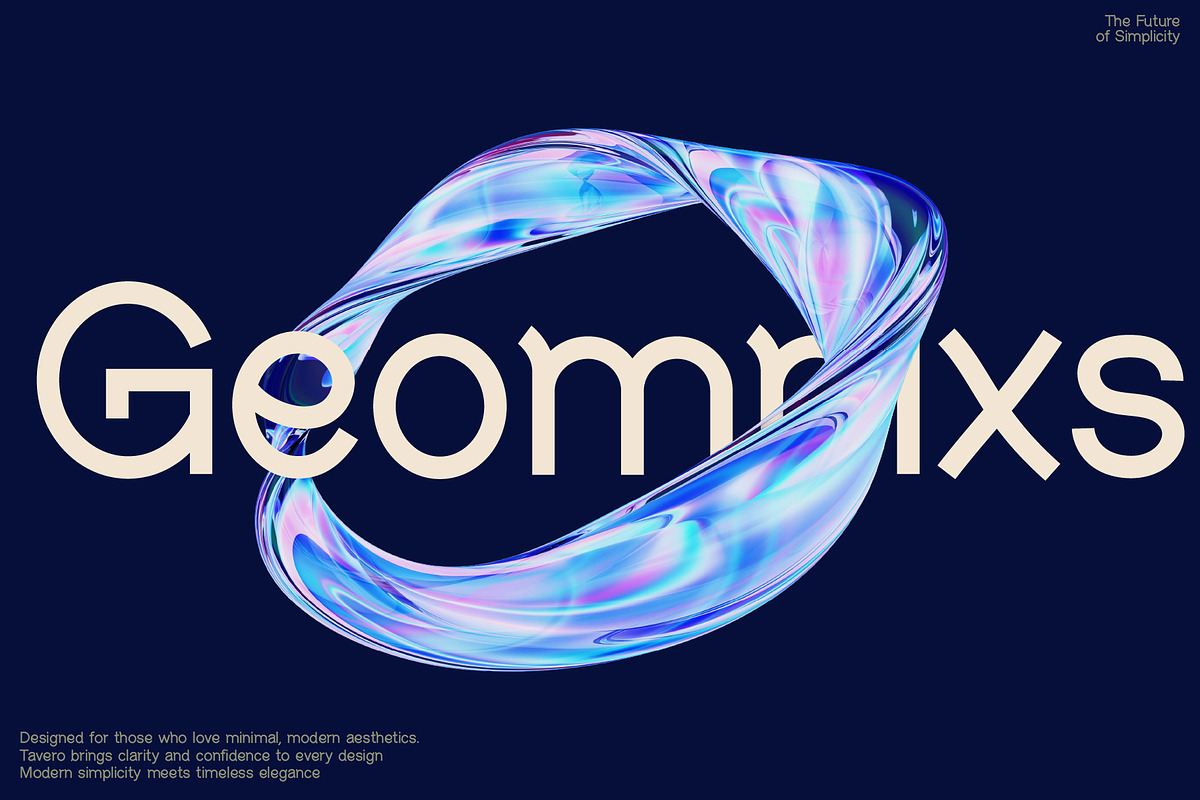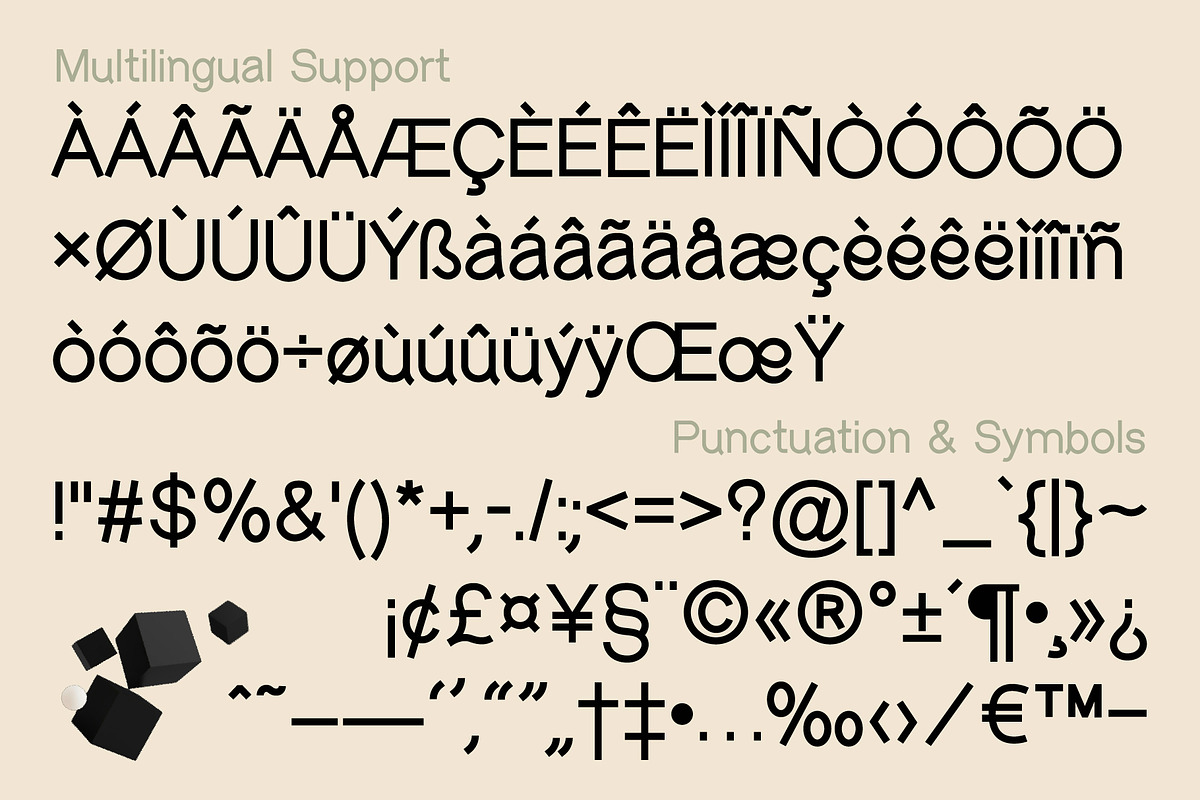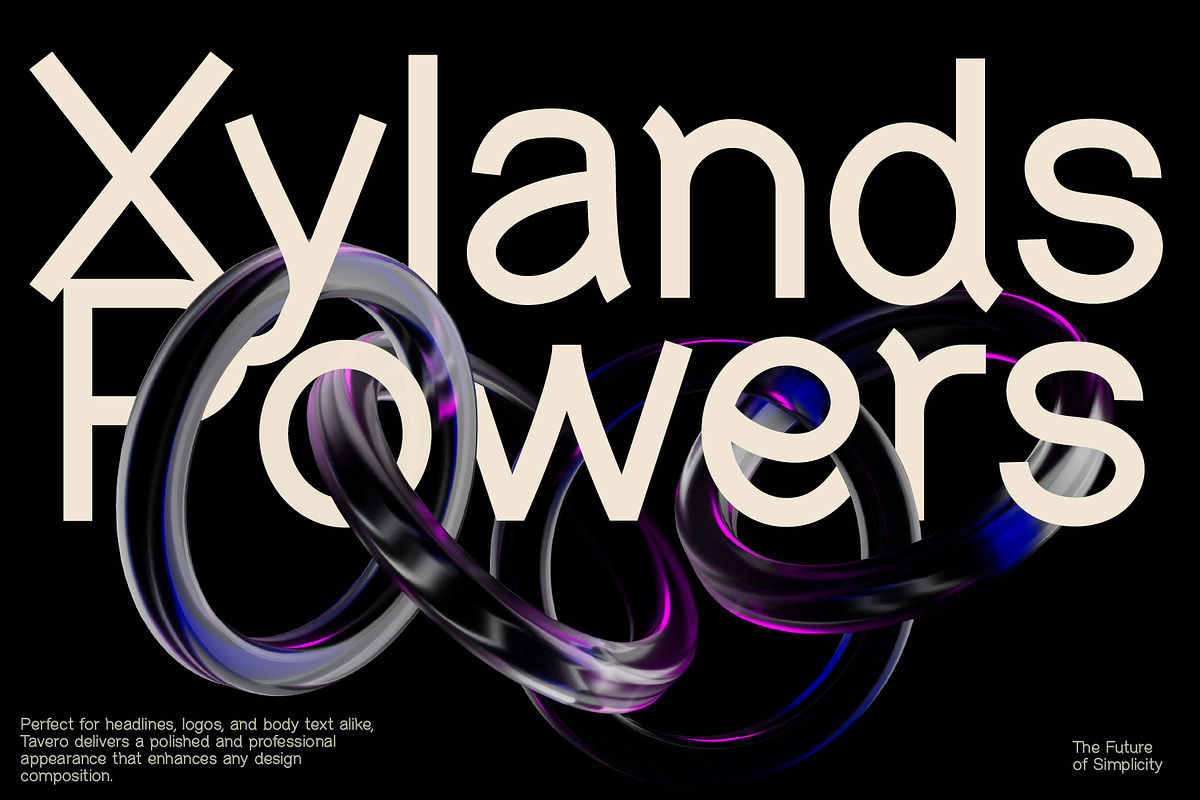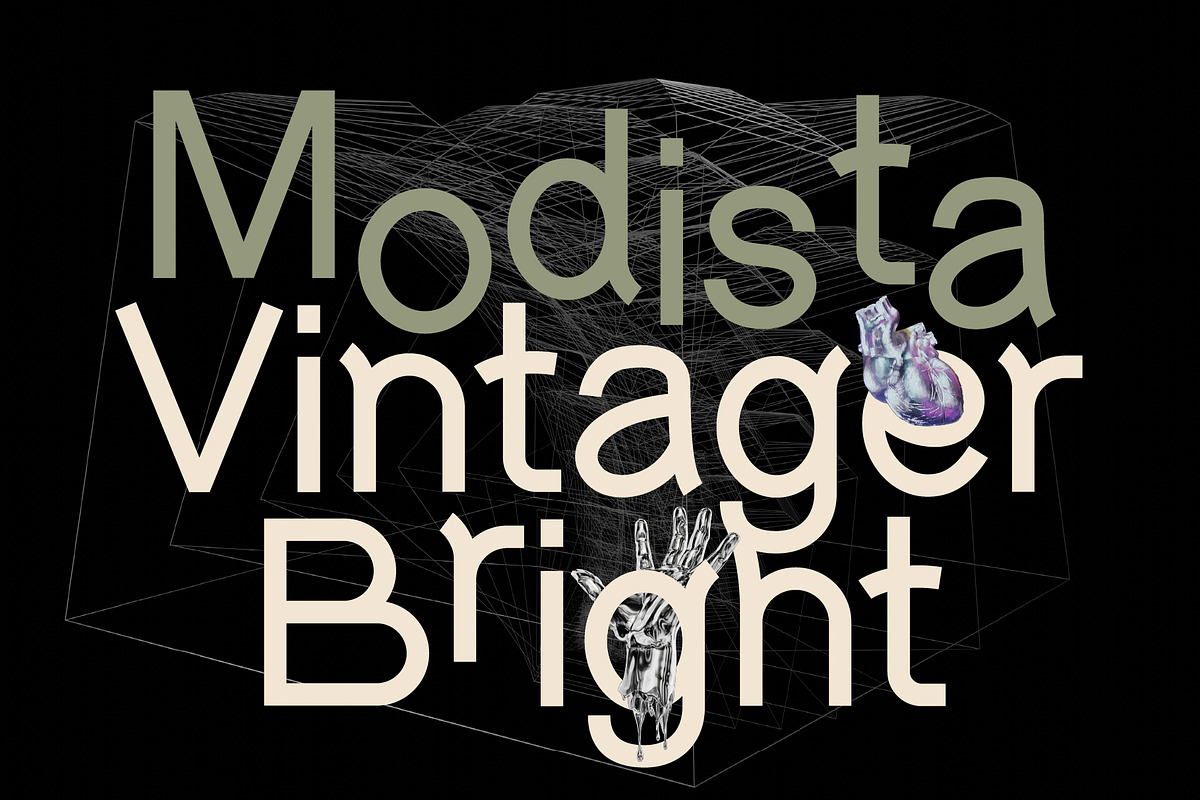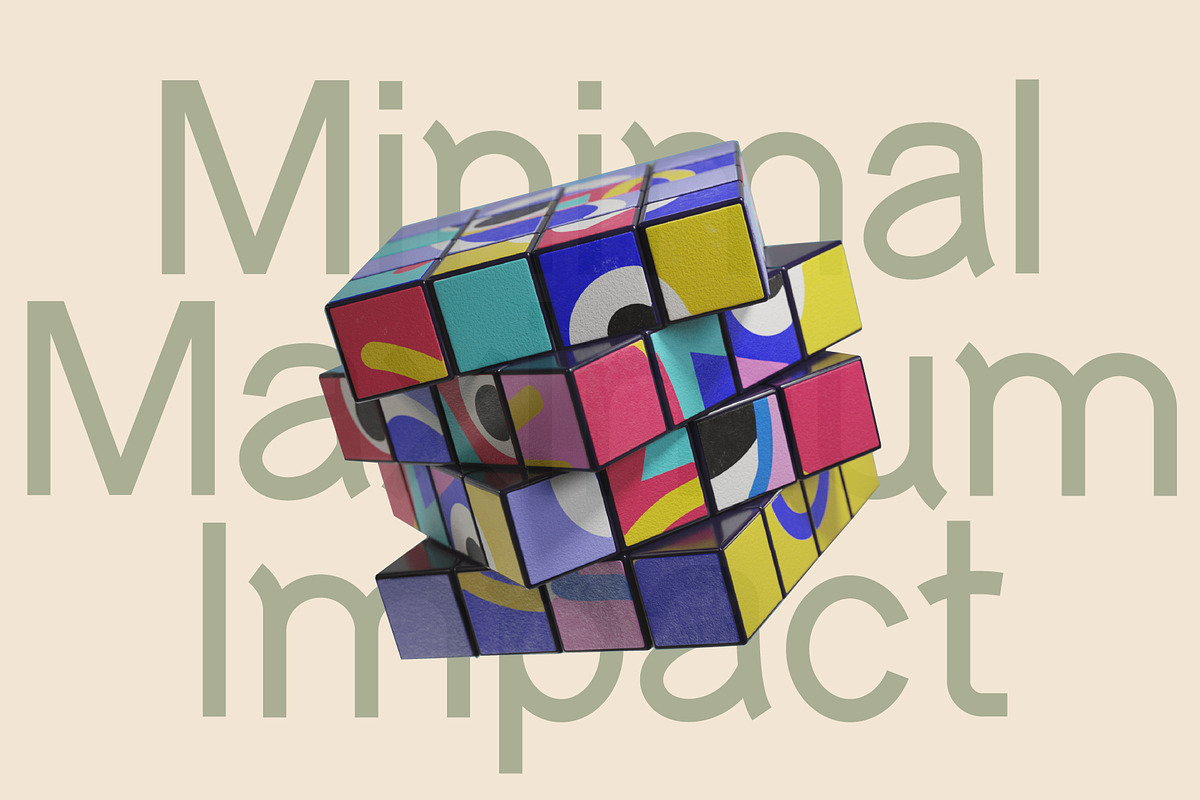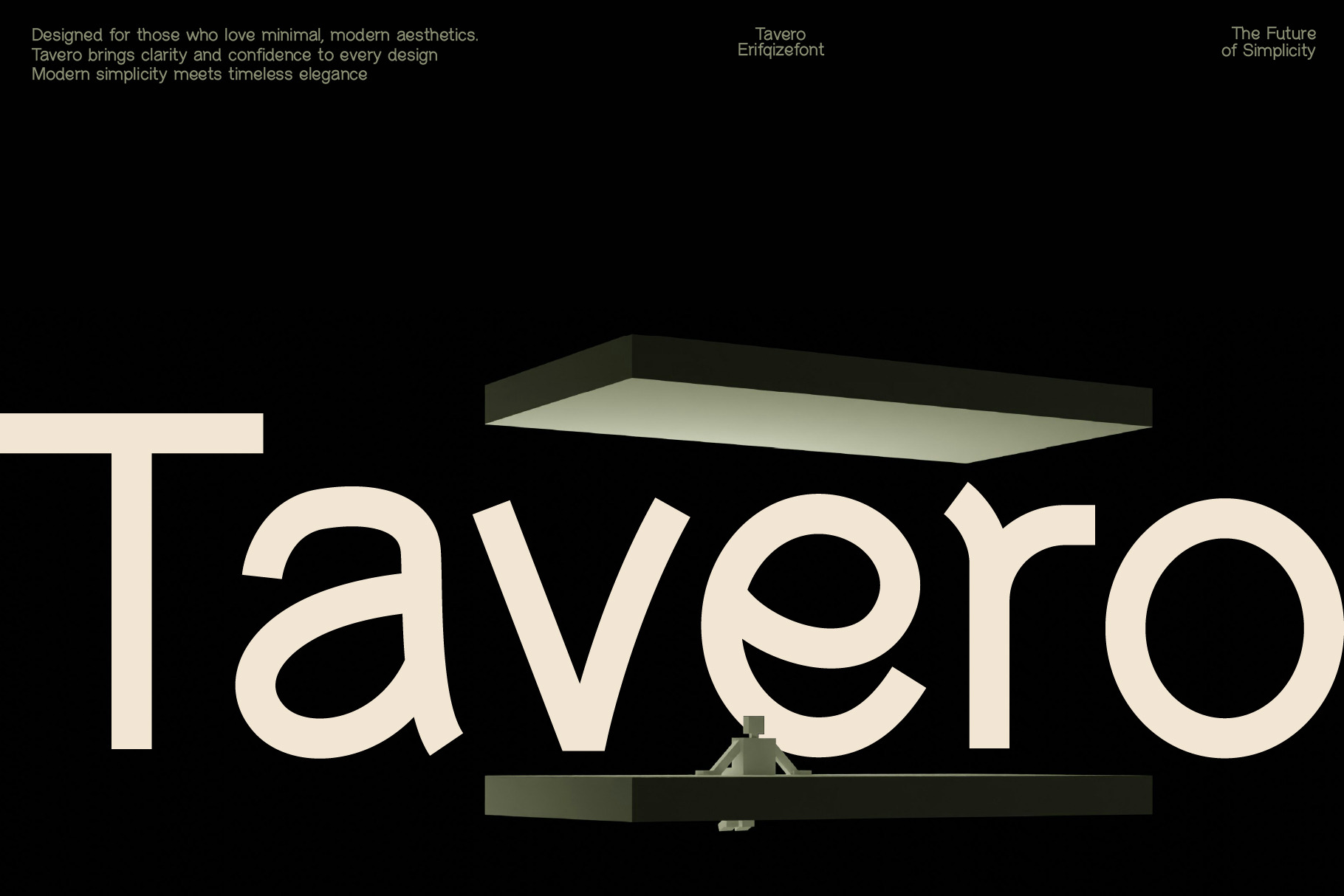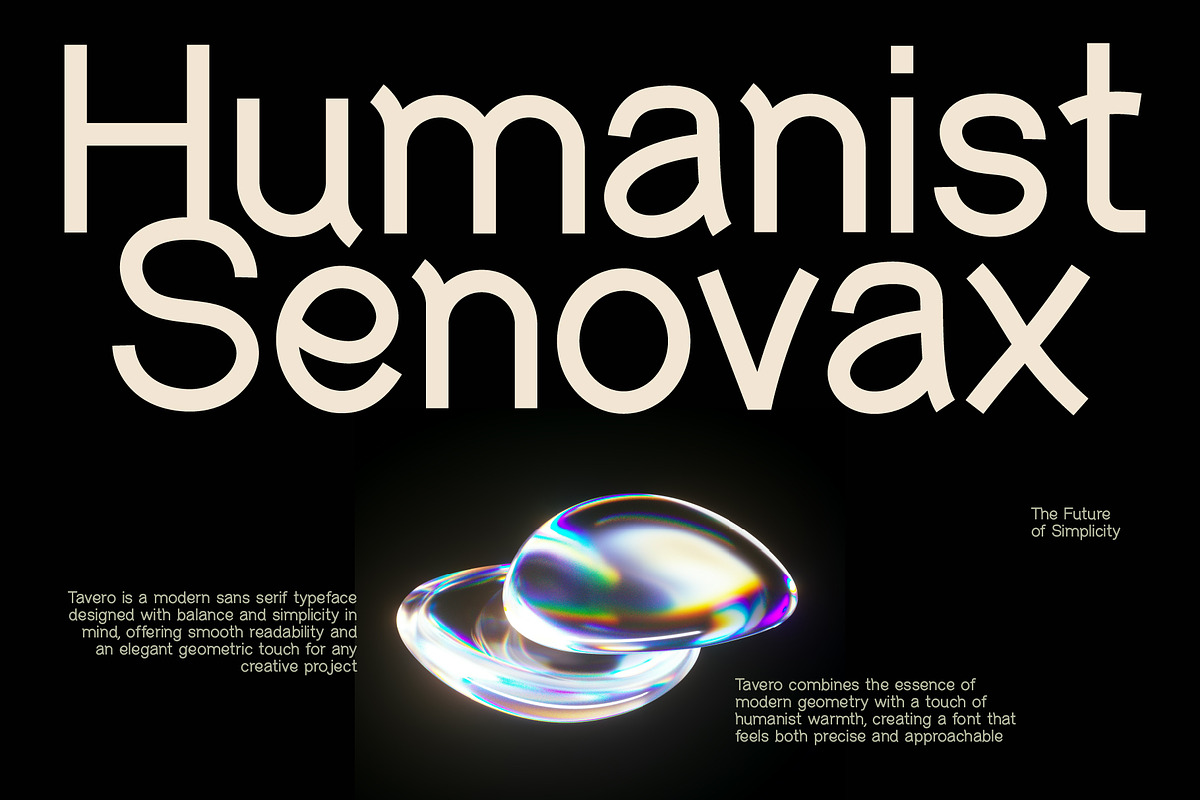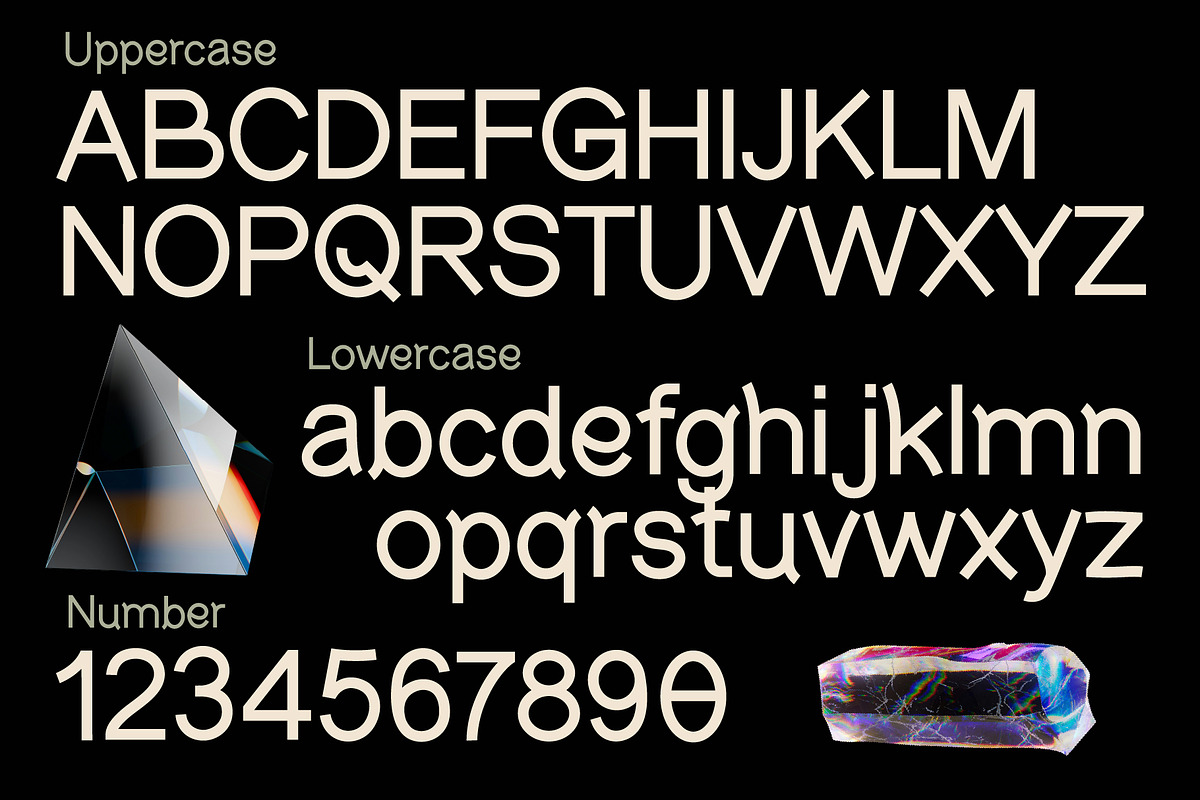
Tavero Font
Tavero is a modern sans serif typeface that embodies simplicity and sophistication. Designed with smooth curves, balanced proportions, and clean geometry, Tavero delivers a refined look that fits perfectly across branding, editorial, and digital projects. Its versatility makes it ideal for minimal design, professional layouts, and stylish typography compositions. Crafted with precision by Erifqizefont, Tavero blends clarity with timeless elegance — a font that speaks modernity in every letter.